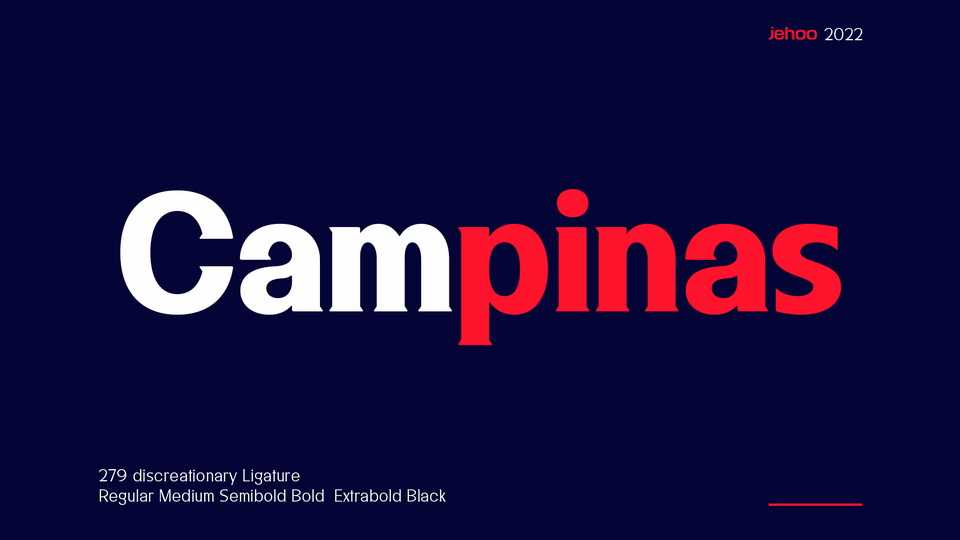
Download Campinas font, a ligature typeface that has a serif foundation shape with minimal contrast. Campinas is designed to carry an expressive and engaging character making this font very suitable for casual and fun themed designs.
Designer: Jehoo Creative